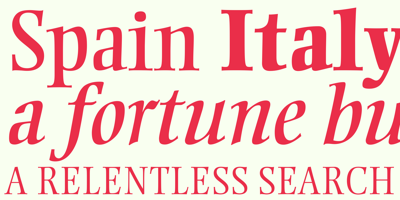
Chronica Pro Font is an elegant and refined serif typeface designed for high-end editorial design, book typography, luxury branding, magazines, newspapers, and formal invitations. Its classic proportions and smooth curves deliver readability combined with sophistication.
What makes Chronica Pro Font Free Download truly exciting is its versatility and timeless appeal. Balancing tradition with modern clarity, it enhances long-form texts and headlines alike, making every word feel important and polished.
The Chronica Pro Font family includes multiple weights and styles such as Light, Regular, Medium, Bold, and Italic, offering designers flexibility to create layered, dynamic typography with a professional touch.
Whether you’re crafting an elegant magazine layout, a distinguished brand identity, or a formal invitation, Chronica Pro Font Free Download adds a graceful, polished finish that elevates your designs to the next level.